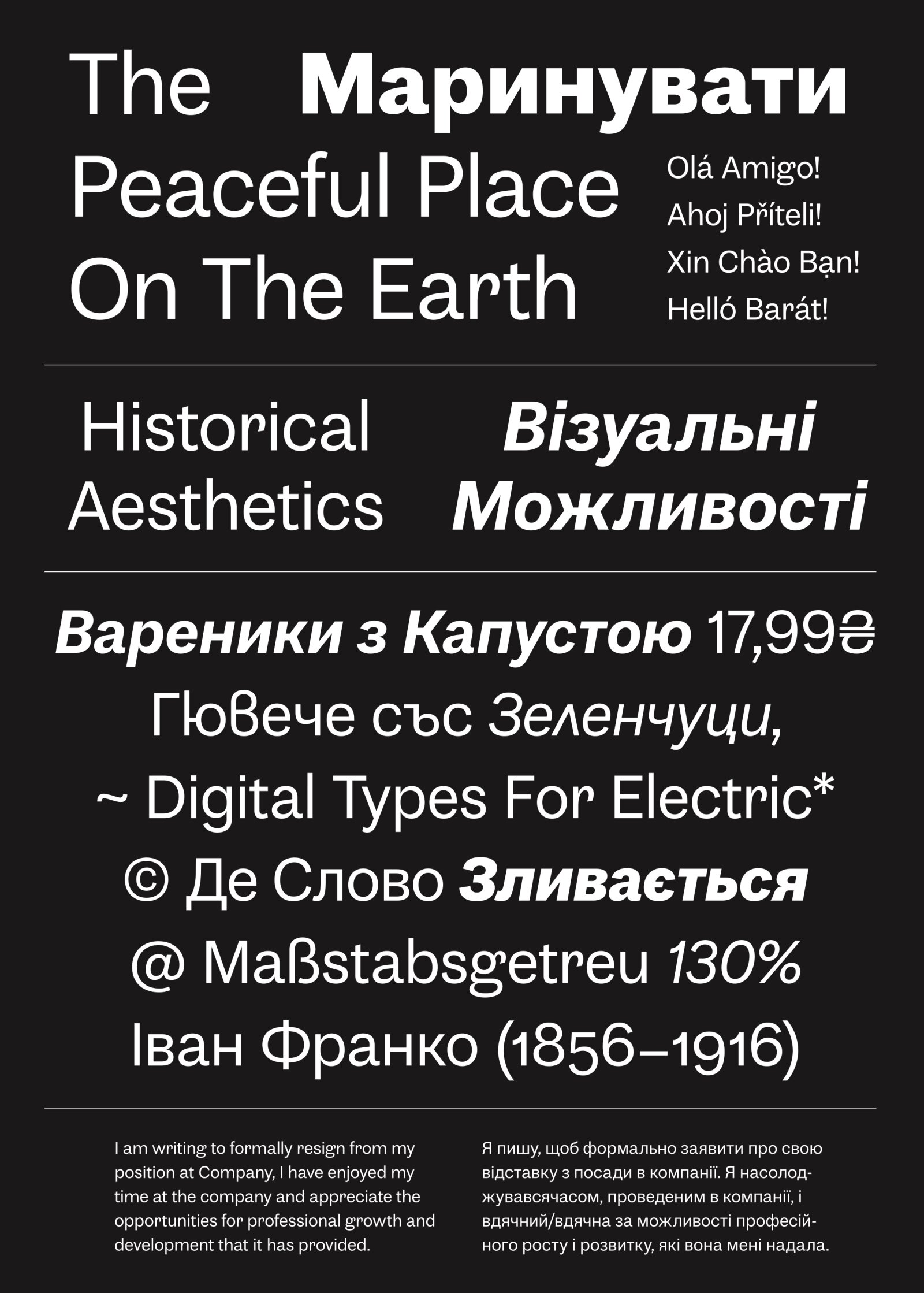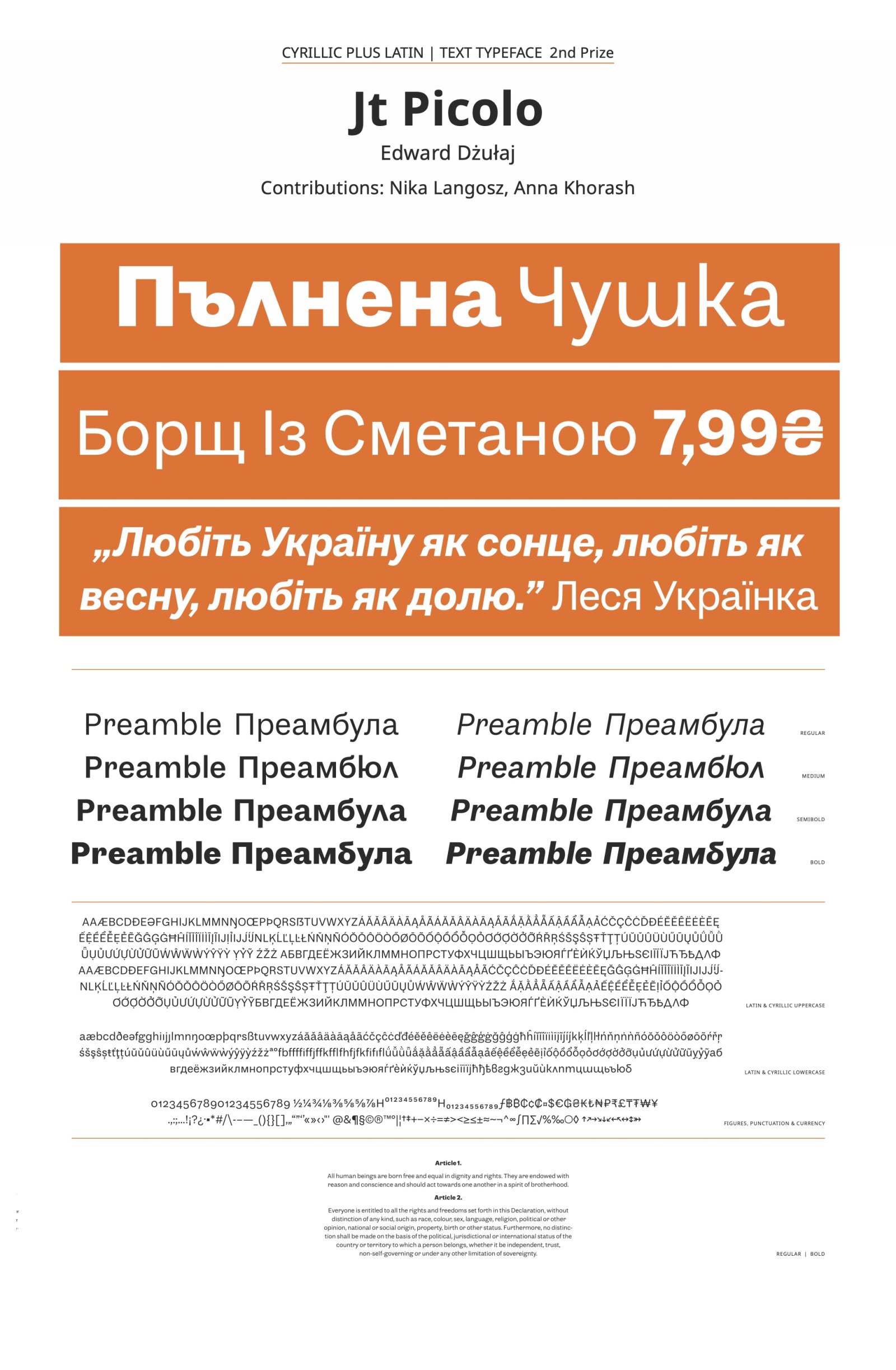
Jt Picolo
by Edward Dżułaj, Anna Khorash, Dominika Nika Langosz
Cyrillic
B1 Text Typefaces with a latin complement
Jt Picolo blends the elegance of 19th-century Grotesque typefaces with a contemporary touch. The basic character set was drawn on paper, prioritizing modern letter proportions with a relatively large x-height. The research explored 19th-century high-contrast Grotesque typefaces, mainly from French, Dutch, and German type Foundries. My main motivation was to provide Cyrillic support for Ukrainian users during and after the war. Given my background in a Polish-Ukrainian family, my project must contribute to this cause. Its functionality makes it suitable for various applications, from editorial layouts to digital platforms.